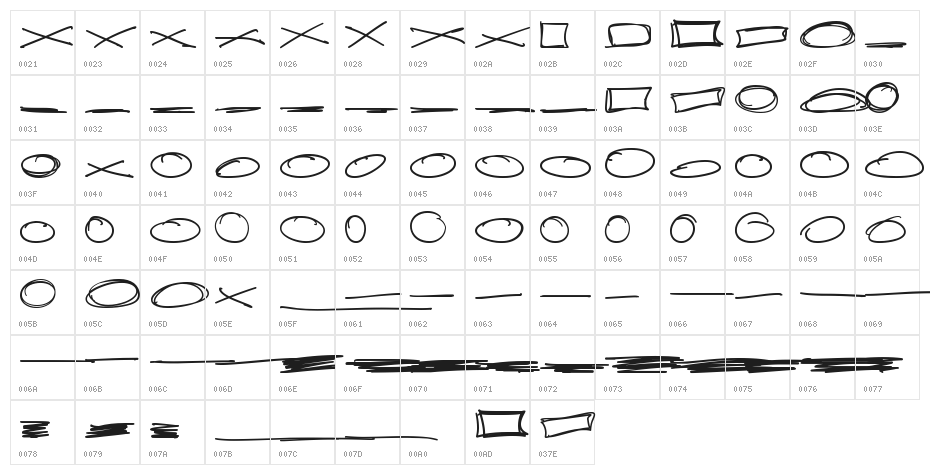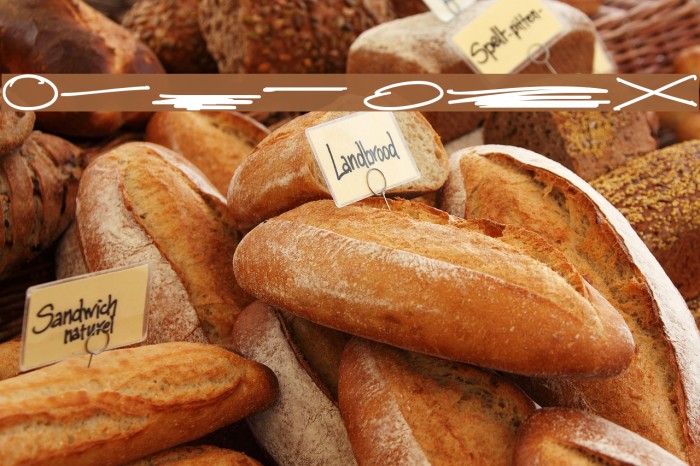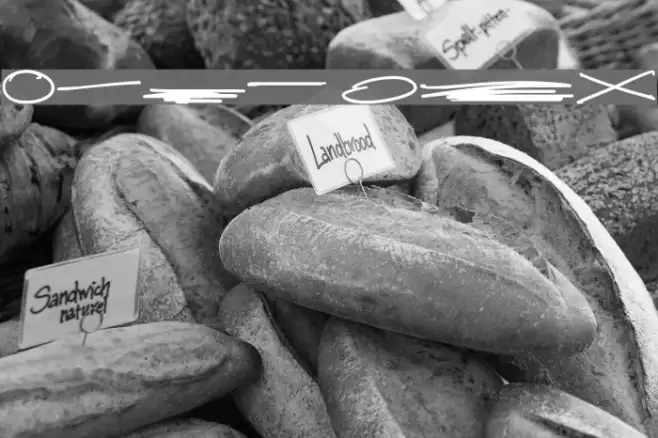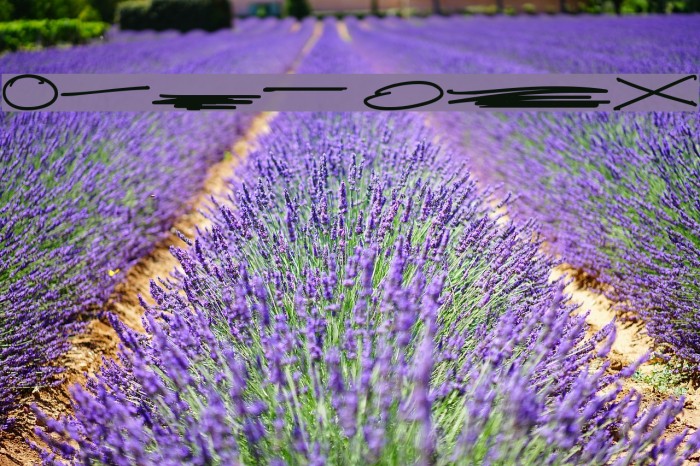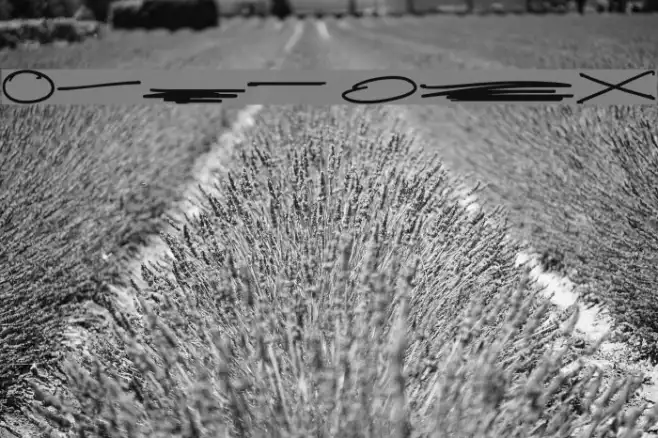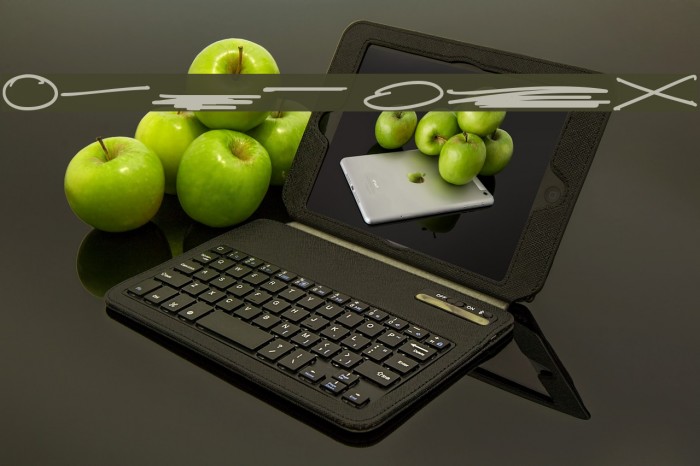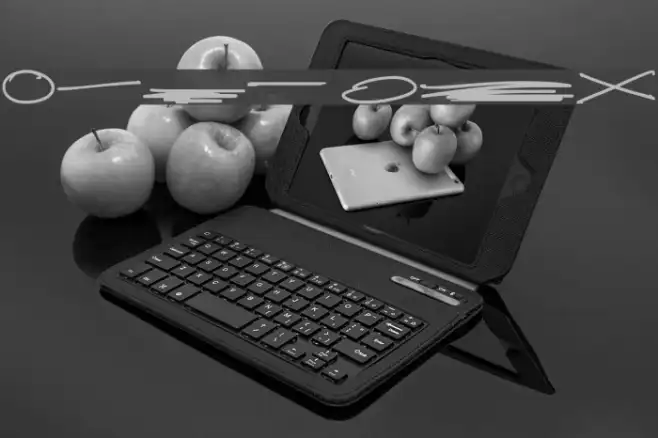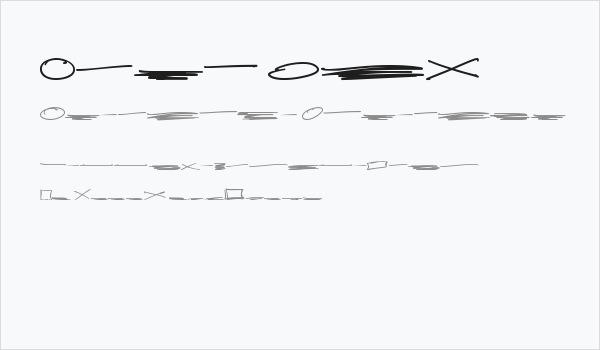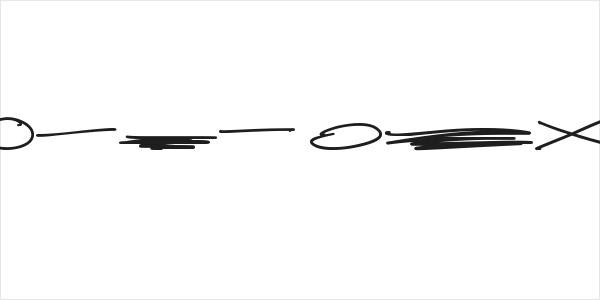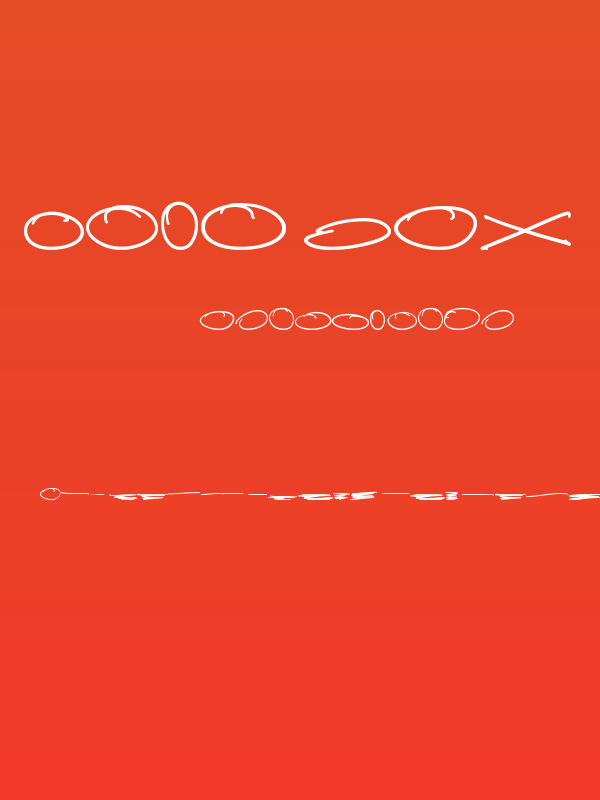
Mark It! Font
Mark It! Description
A playful, hand-drawn decorative style featuring irregular, sketchy lines and shapes that mimic marker or pen doodles, with a casual and informal appearance.
| Overall Style | Decorative, Playful, Hand-drawn |
| Use Case | Headlines, Posters, Decorative elements |
| Proposed Projects | Children's books, creative posters, scrapbooking, informal invitations, playful branding. |